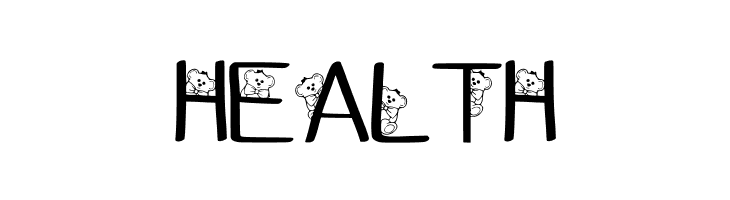
( Pretty Little Line Designs - prettylittlelinedesigns.com )
A playful font with teddy bear illustrations, perfect for children's themes.
( Renny Murray - www.rennysniche.com )
A playful font with characters inside cartoon chicken outlines, perfect for fun designs.
( Renny Murray - www.rennysniche.com )
A whimsical font with letters inside penguin shapes, perfect for playful designs.
( Renny Murray - www.rennysniche.com )
A whimsical font with characters inside cartoon owl designs, perfect for playful projects.
( Renny Murray - www.rennysniche.com )
A whimsical font with characters inside cartoon penguin silhouettes, perfect for playful designs.
( SpideRaYsfoNtS - www.spideraysfonts.com )
A bold, star-patterned decorative font ideal for playful designs.
A bold and dynamic font with thick strokes and sharp edges, perfect for impactful designs.
A bold, three-dimensional font with a shadow effect and italic style, perfect for attention-grabbing designs.